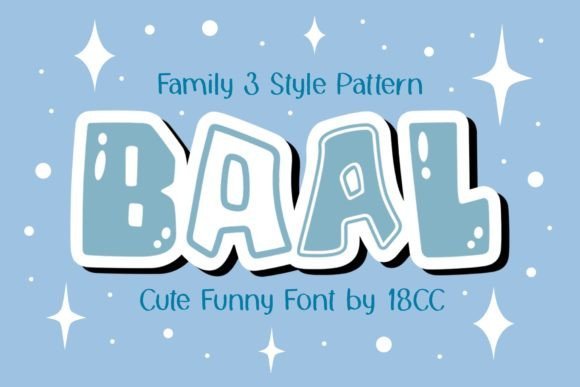
Introduction to Baal Font
Baal is a playful 3 style family font.
This unique font grabs attention in print, packaging, and social media, making it perfect for creating a distinctive and memorable visual impact .
Key Features of Baal Font